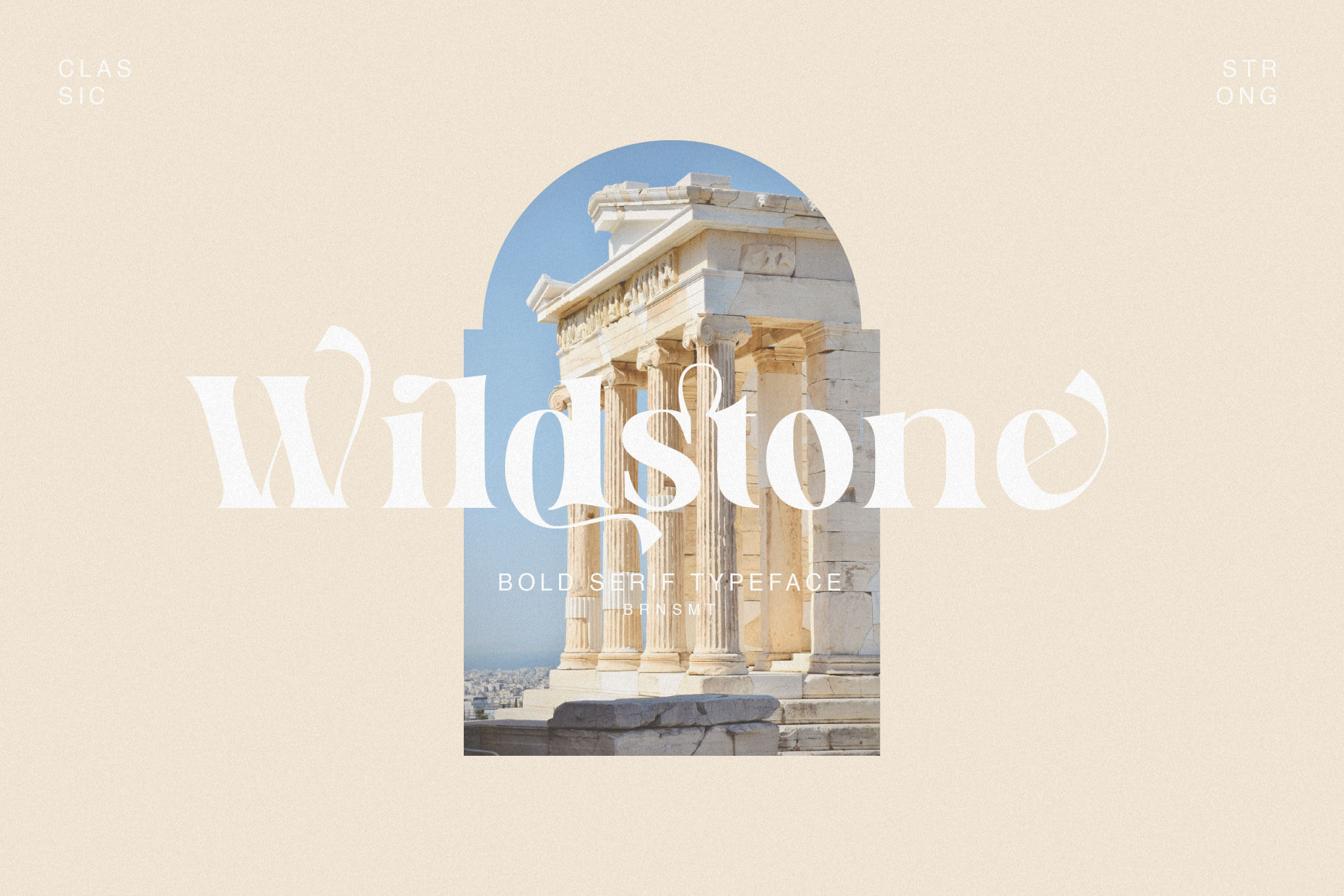
Wildstone - Ligature Serif Typeface
Introducing our new "Wildstone", Modern ligature typeface with Unique shapes, Classy and Stylish. Is perfect for branding, logos, invitation, master heads, and more.
Wildstone Features :
- Multilanguage